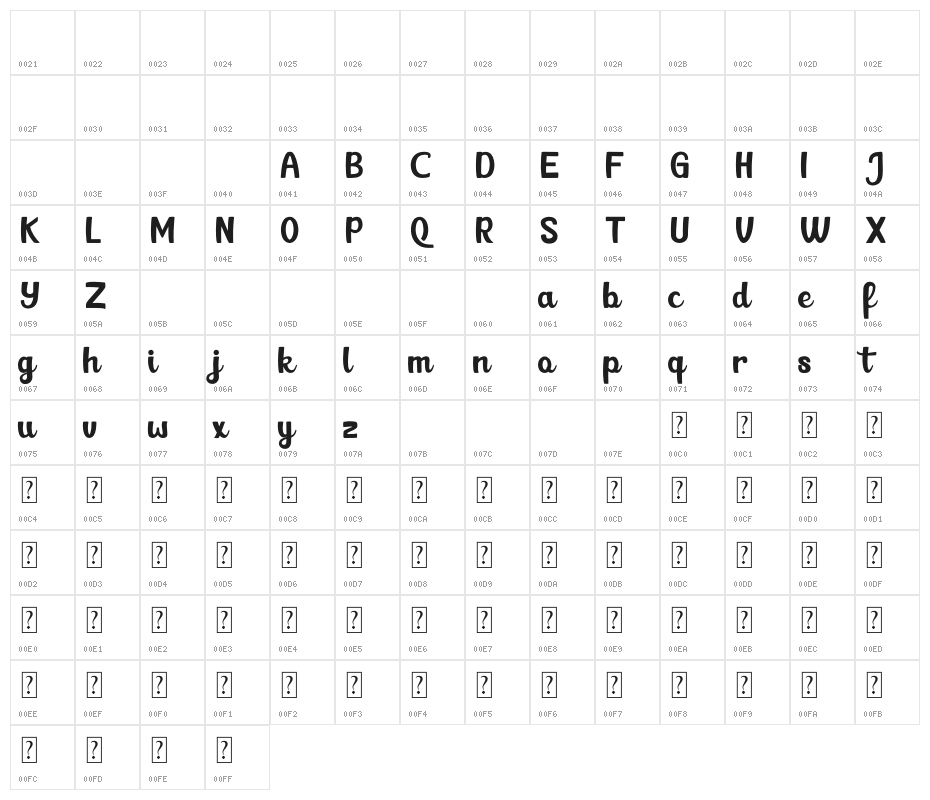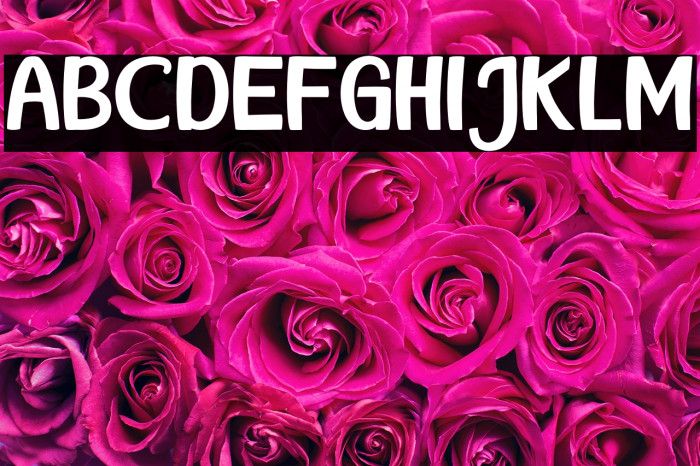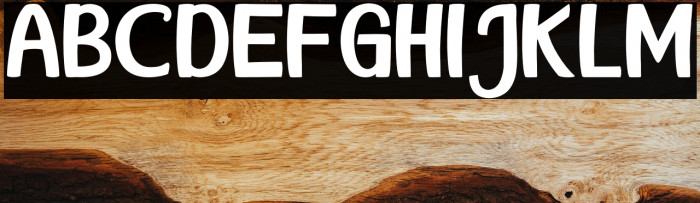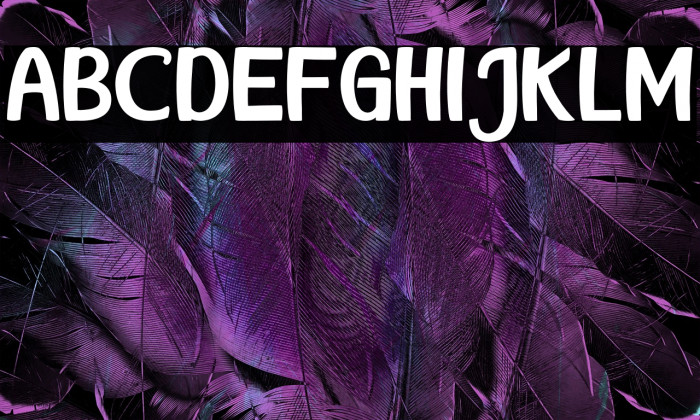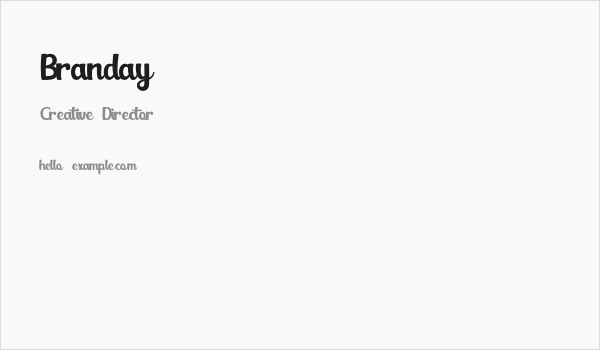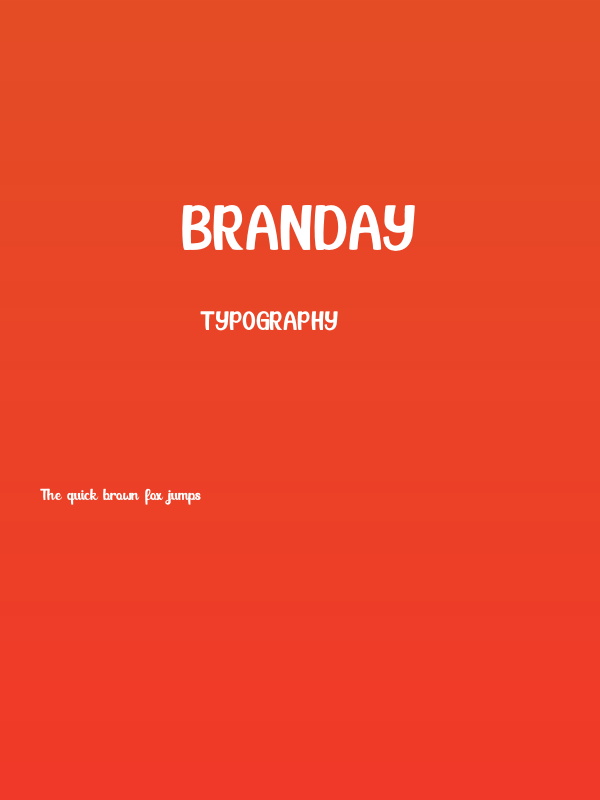
Branday Font
Branday Description
This font features a bold and playful style with a handwritten feel. The uppercase letters are slightly rounded with a consistent stroke width, giving them a friendly and approachable appearance. The lowercase letters maintain the same playful character, with some letters featuring unique loops and curves that add to the overall charm. The numbers are bold and clear, matching the style of the letters. Special characters are designed to complement the overall aesthetic, ensuring a cohesive look. This font is ideal for projects that require a fun and engaging typeface.
| Proposed Projects | Ideal for children's books, playful branding, greeting cards, and casual invitations. |